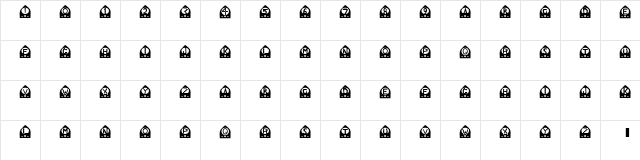
old time radio Regular
Design Context for old time radio
old time radio is a composed and adaptable typeface that performs quietly and consistently across a wide range of design contexts.